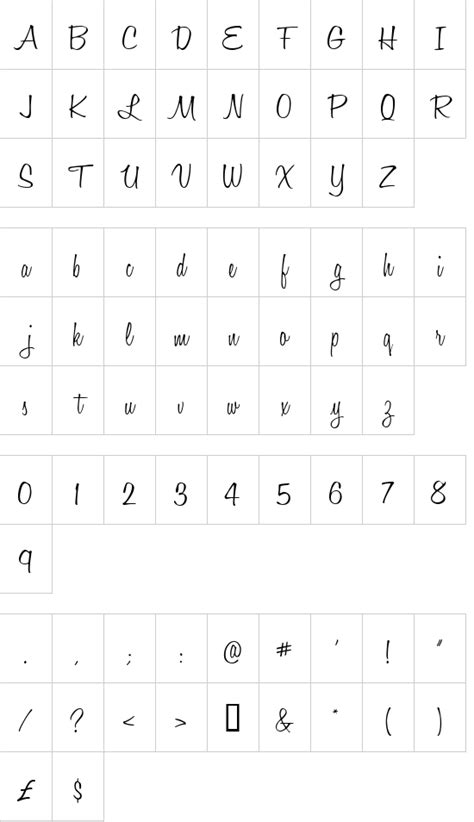
Honey Script Medium Font / Honey Script 30mm Font - WilcomEmbroideryFonts.com / Hello, you seem to have javascript turned off.. This font is labeled as handwritten font. Please enable it to use the advanced features of this website. Uploaded by zemin (1 styles). Report a violation add to list. Hello honey from by ef studio is a chic script font with stylish calligraphic designs and swift strokes that combine thin and thick lines.
Honey script font is a script, various font designed by dieter steffmann.
Report a violation add to list. Uploaded by zemin (1 styles). The honey script semibold font contains 226 beautifully designed characters. Hello honey from by ef studio is a chic script font with stylish calligraphic designs and swift strokes that combine thin and thick lines. The font contains characters from the following unicode character ranges: Buttey honey script font is a cursive font that has a tail at the beginning and at the end of the letter that is suitable for use for posters, branding and buttey honey script font is very easy to access because we have given pua encoded and divide special characters into opentype features such as. Download honey script font family · free for commercial use · includes honey script light, semibold ·. This font come in ttf format and support 226 glyphs. Script is a product of micrologic software, inc. Please, take into account that this process may take some minutes, especially when generating models for large texts, complicated fonts and/or with base. The commercial use of this font is allowed and you can integrate it in any printed or web design project. Honey script font is a script, various font designed by dieter steffmann. Looking for honey script fonts?
Buttey honey script font is a cursive font that has a tail at the beginning and at the end of the letter that is suitable for use for posters, branding and buttey honey script font is very easy to access because we have given pua encoded and divide special characters into opentype features such as. Honey script font is one of honey script font variant which has semibold style. Honey script font is a script, various font designed by dieter steffmann. Discover and customize the font honey script and other similar fonts, ready to share in facebook and twitter. The honey script semibold font contains 226 beautifully designed characters.
Hello honey from by ef studio is a chic script font with stylish calligraphic designs and swift strokes that combine thin and thick lines.
Report a violation add to list. A simple hello can bring a smile to anyone's face, but a hello honey can make their day. It includes uppercase, lowercase, numbers and punctuation characters. This font come in ttf format and support 226 glyphs. The honey script font has been downloaded 197,519 times. Please enable it to use the advanced features of this website. Honey script font is a script, various font designed by dieter steffmann. Please, take into account that this process may take some minutes, especially when generating models for large texts, complicated fonts and/or with base. Looking for honey script fonts? Every font is free to download! The commercial use of this font is allowed and you can integrate it in any printed or web design project. Hello honey from by ef studio is a chic script font with stylish calligraphic designs and swift strokes that combine thin and thick lines. Buttey honey script font is a cursive font that has a tail at the beginning and at the end of the letter that is suitable for use for posters, branding and buttey honey script font is very easy to access because we have given pua encoded and divide special characters into opentype features such as.
The honey script semibold font contains 226 beautifully designed characters. Hello honey from by ef studio is a chic script font with stylish calligraphic designs and swift strokes that combine thin and thick lines. Buttey honey script font is very easy to access because we have given pua encoded and divide special characters into opentype features such as. A simple hello can bring a smile to anyone's face, but a hello honey can make their day. It includes uppercase, lowercase, numbers and punctuation characters.